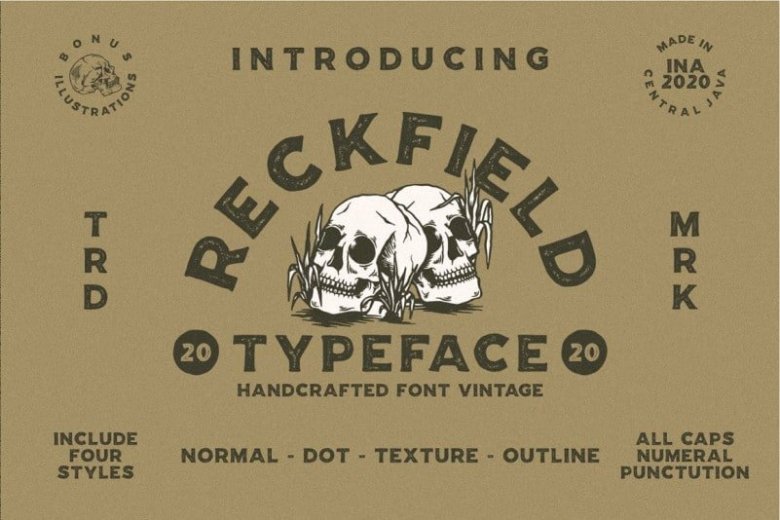
Reckfield Display Font
Rockfield is a font with a coarse hand-written paint style, perfect for businesses that need a classic vintage or 70s / 80s touch. This font includes 4 styles in the package, normal, dot, texture, and outline.